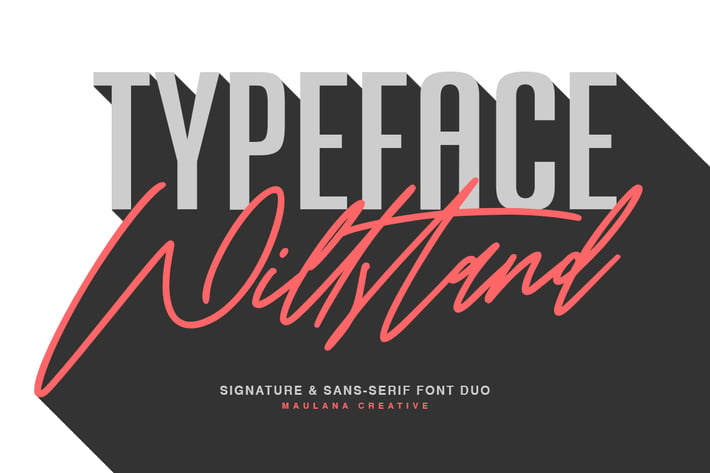
Willstand Font Duo Signature Sans Typeface
Give your designs an authentic brush handcrafted feel. “Willstand” is perfectly suited to signature, stationery, logo, typography quotes, magazine or book cover, website header, flyer, clothing, branding, packaging design and more.